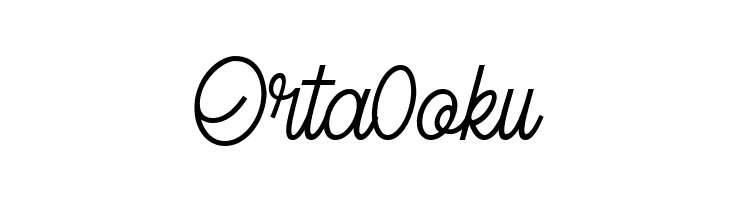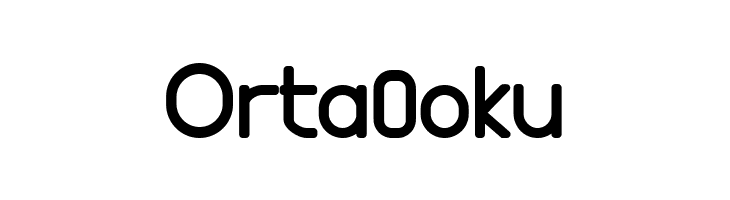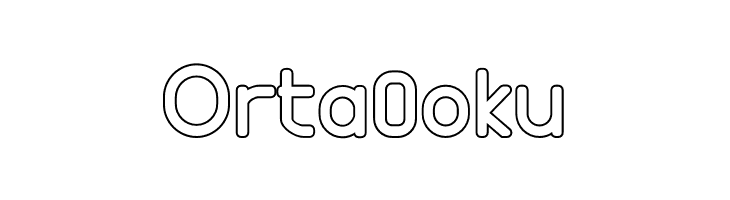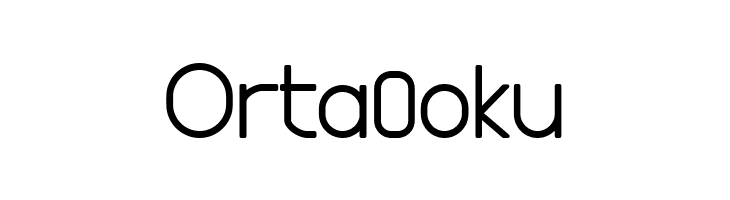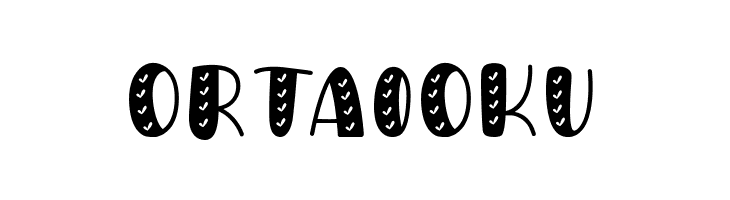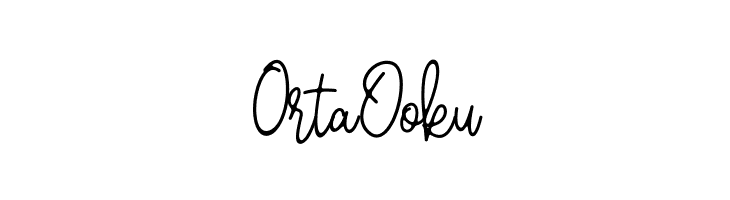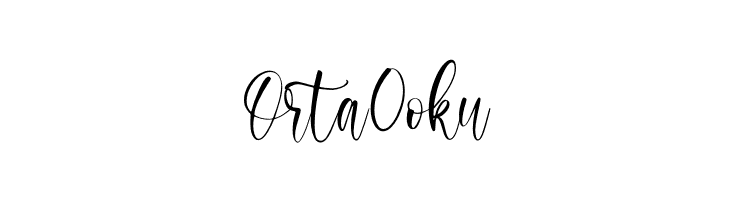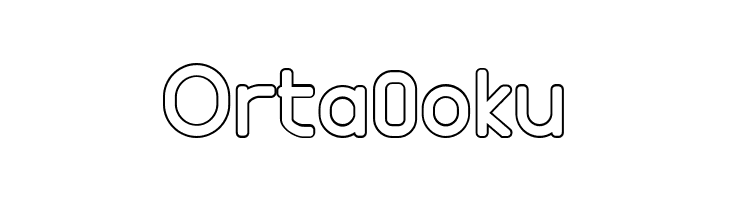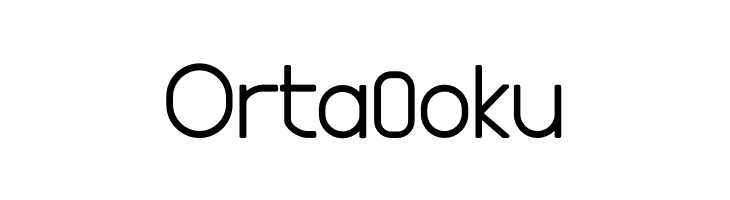
An elegant, flowing script font with artistic curves and delicate strokes.
A playful, hand-drawn font with dynamic curves and a whimsical style.
An elegant and flowing script font with ornate uppercase letters and harmonious lowercase characters.
A bold serif font with dramatic contrast and elegant curves.
A modern, geometric font with a clean and friendly appearance.
A playful and elegant script font with a handwritten, cursive style.
A sophisticated script font with flowing, cursive letterforms and elegant flourishes.
A flowing, cursive script font with elegant, sweeping curves.
A playful, handwritten font with tall, narrow letters and a casual style.
A modern, italicized font with elongated, rounded characters.
A modern vintage font with rounded, elongated letterforms and consistent stroke width.
A playful, hand-drawn font with irregular, wavy lines and a casual style.
A lively and elegant script font with fluid, cursive strokes.
A fluid and elegant script font with a handwritten style.
A lively handwritten font with fluid, expressive strokes.
An elegant, flowing script font with graceful curves and a handwritten style.
A modern, rounded sans-serif font with clean lines and excellent readability.
A modern sans-serif font with rounded edges and excellent readability.
A graceful, handwritten script font with a fluid and elegant style.
Elegant handwritten script font.
A fluid and elegant script font with a handwritten feel.
A decorative and elegant font with intricate loops and swirls.
A decorative and elegant font with intricate swirls and loops.
A flowing, cursive font with elegant, sweeping strokes and a handwritten appearance.
A sophisticated script font with flowing, connected strokes and elegant curves.
A bold, italic font with dynamic strokes and strong presence.
An elegant italic font with moderate contrast and a classic style.
A light, elegant italic font with medium contrast and smooth strokes.